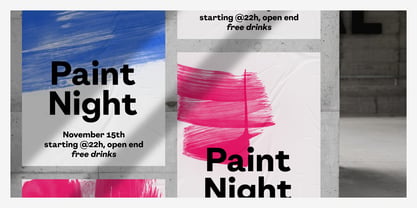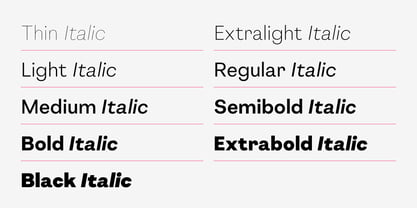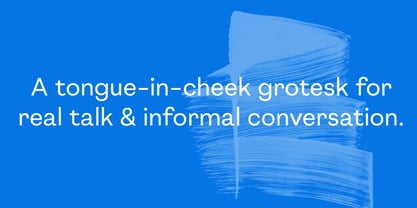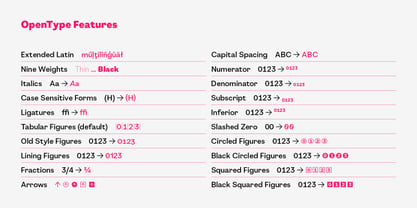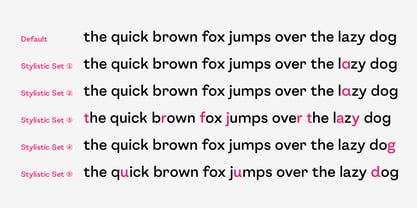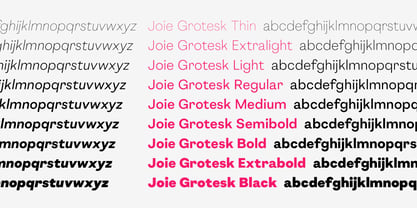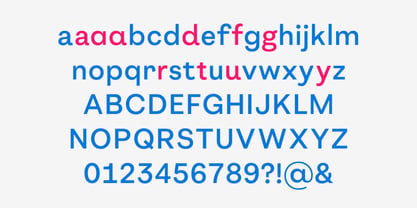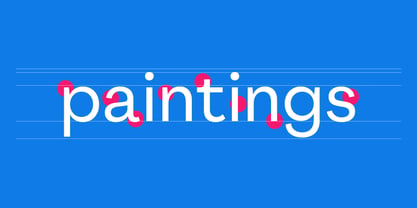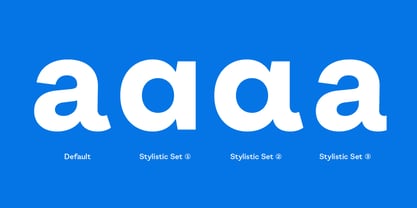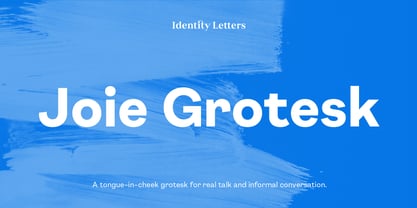
Joie Grotesk
by Identity Letters
The Joie Grotesk Font Family was designed by Moritz Kleinsorge and published by Identity Letters. Joie Grotesk contains 18 styles and family package options. More about this family
Joie Grotesk is a typeface for everyone: a sans for your family, friends, and clients alike.
A clean overall design, it borrows somewhat from early 19th century grotesques, adding warmth to a regular and balanced rhythm. You can fine-tune its flavor with over a dozen Stylistic Sets—for a confident and optimistic voice that suits your requirements.
Nine weights (each with matching italics), 750+ glyphs, and rich Open Type features like circled and boxed numbers and arrows make it a reliable companion for any project.
Use Joie Grotesk when you need a classic sans-serif typeface with a modern and individual twist. It’s the friendly face for your company or campaign, publication or packaging.